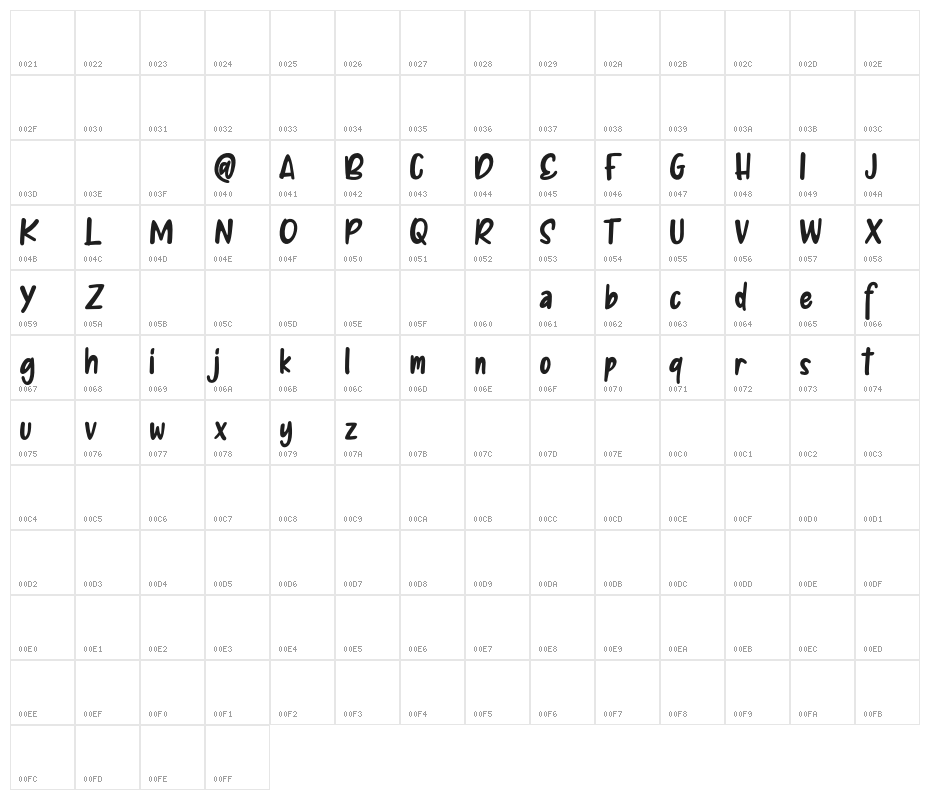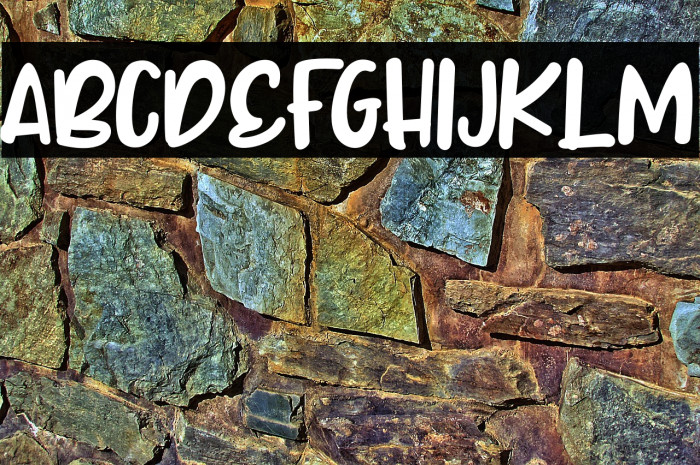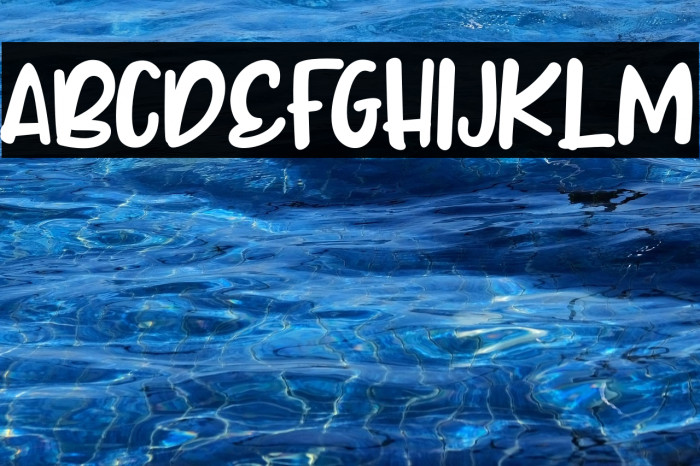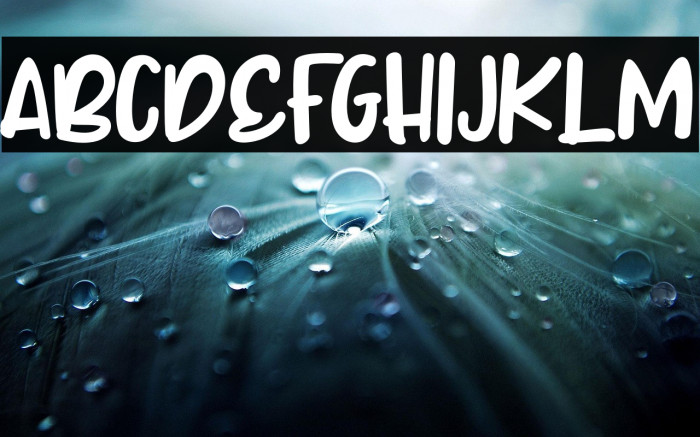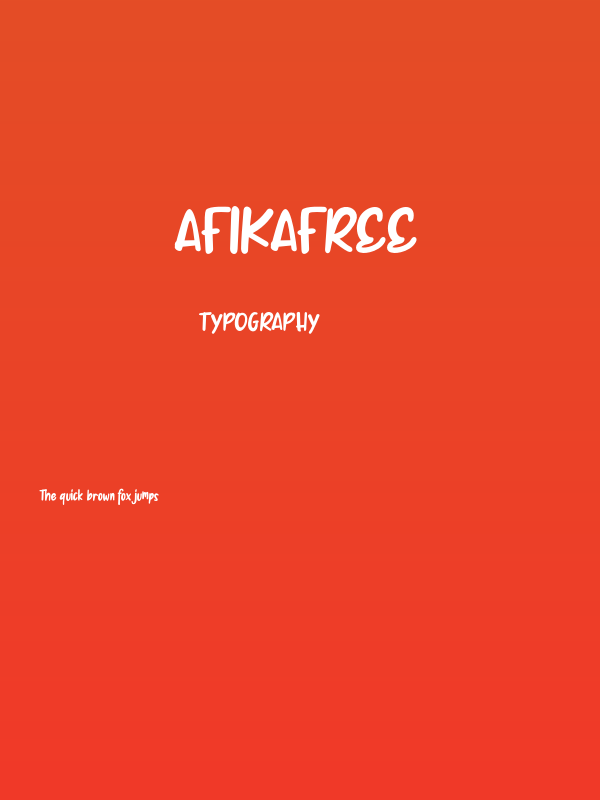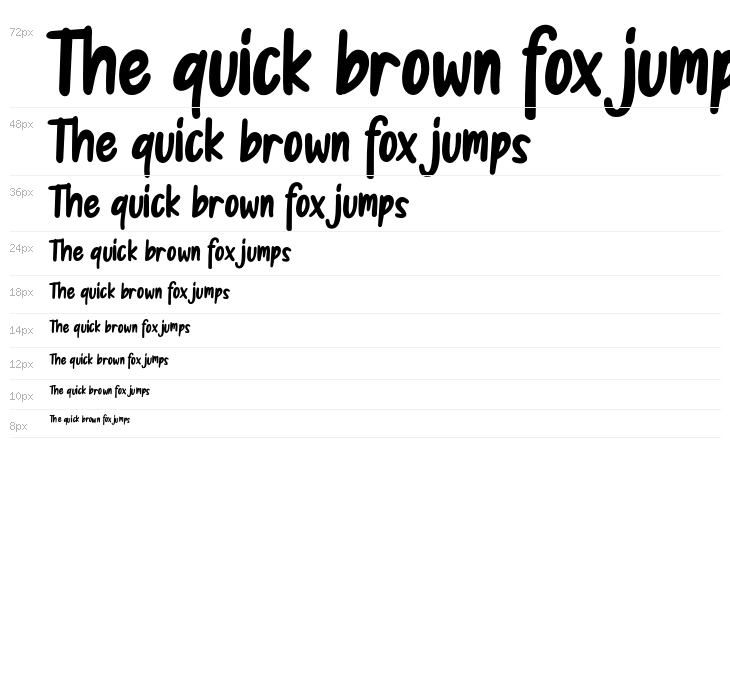
AfikaFREE Font
AfikaFREE Description
This font features a playful and bold handwritten style, characterized by its smooth, rounded edges and slightly irregular letterforms. The uppercase and lowercase letters maintain a consistent flow, giving it a casual and friendly appearance. The strokes are thick and uniform, providing a sense of stability and readability. The font's informal nature makes it suitable for creative and fun projects, where a personal touch is desired. Its unique style can add character and warmth to any design, making it stand out in a crowd.
| Proposed Projects | Ideal for greeting cards, children's books, playful branding, and social media graphics. |